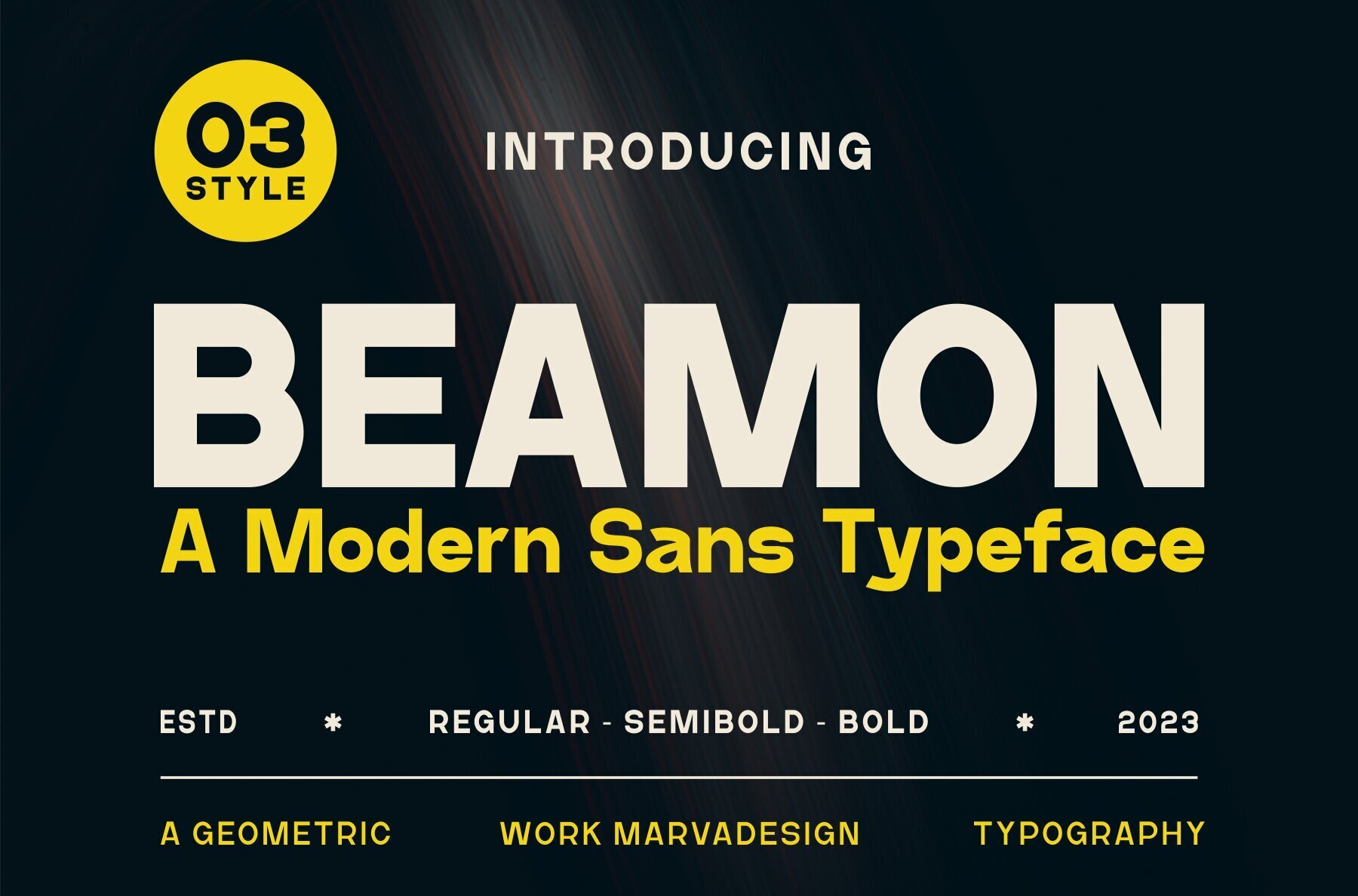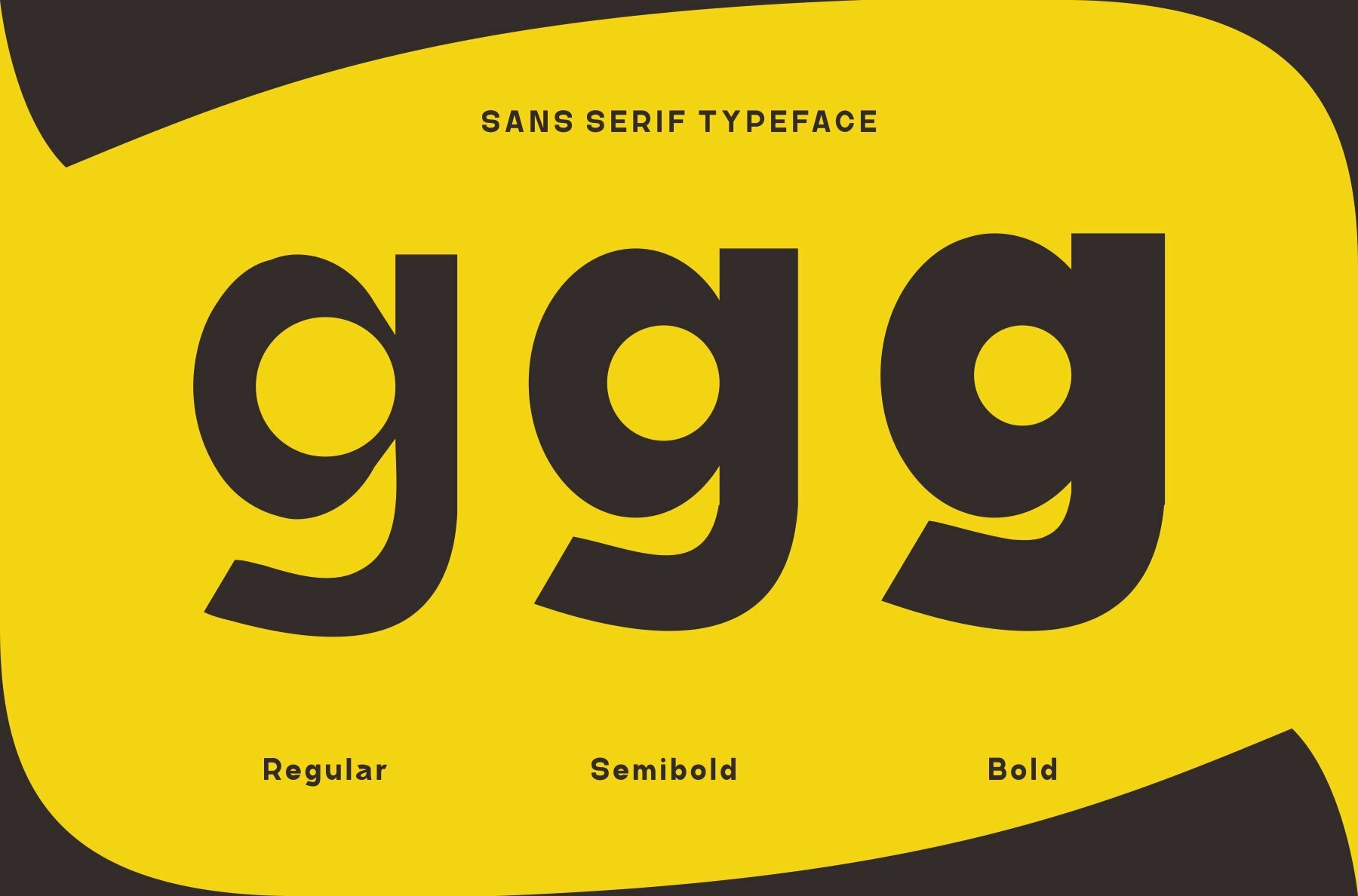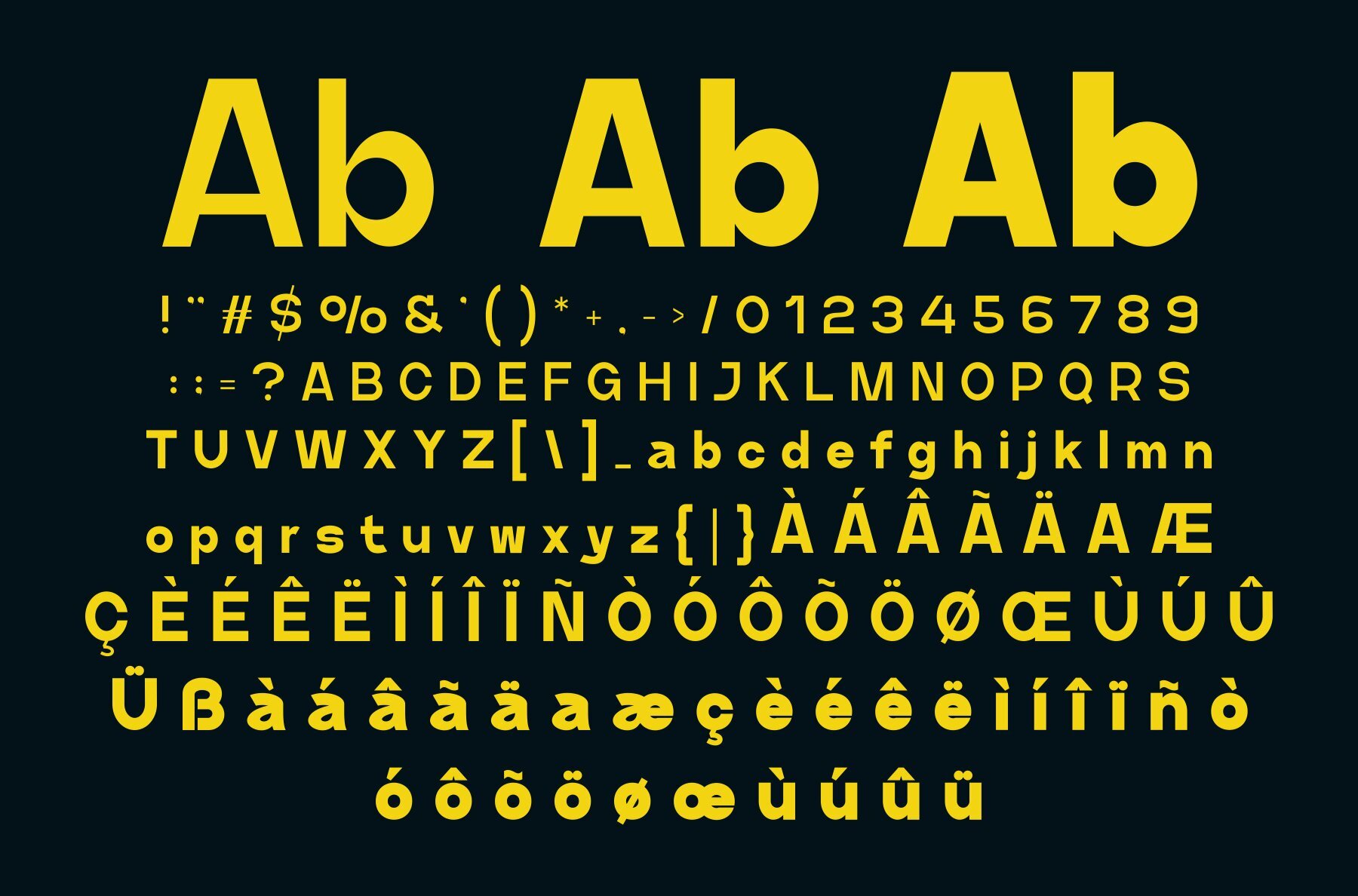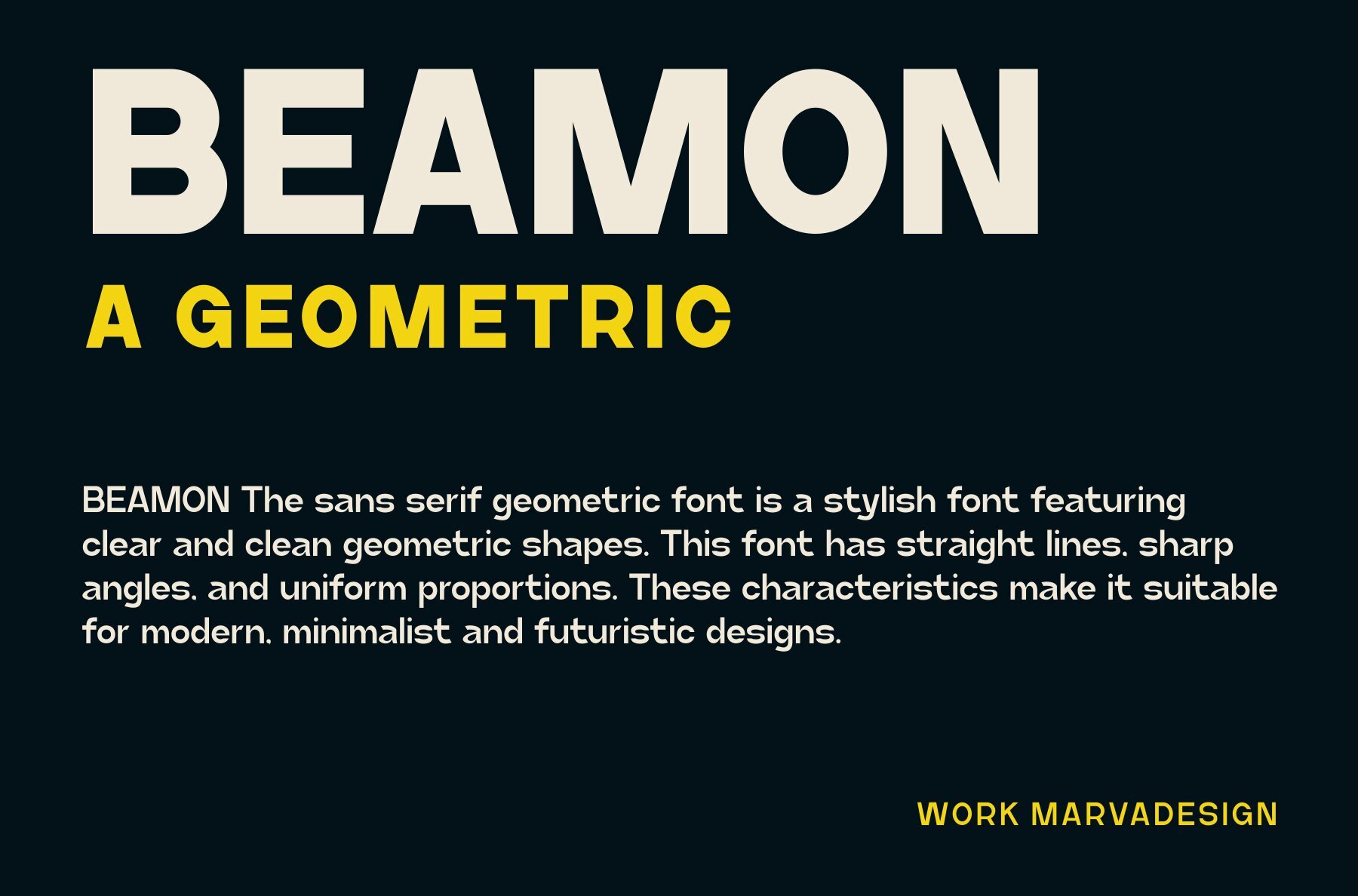
Beamon Font
The Beamon Font is a bold and authentic display typeface, ideal for a range of branding projects such as logos, template designs, and product packaging, standing out across various contexts.Beamon Font: A Bold and Modern Display Typeface